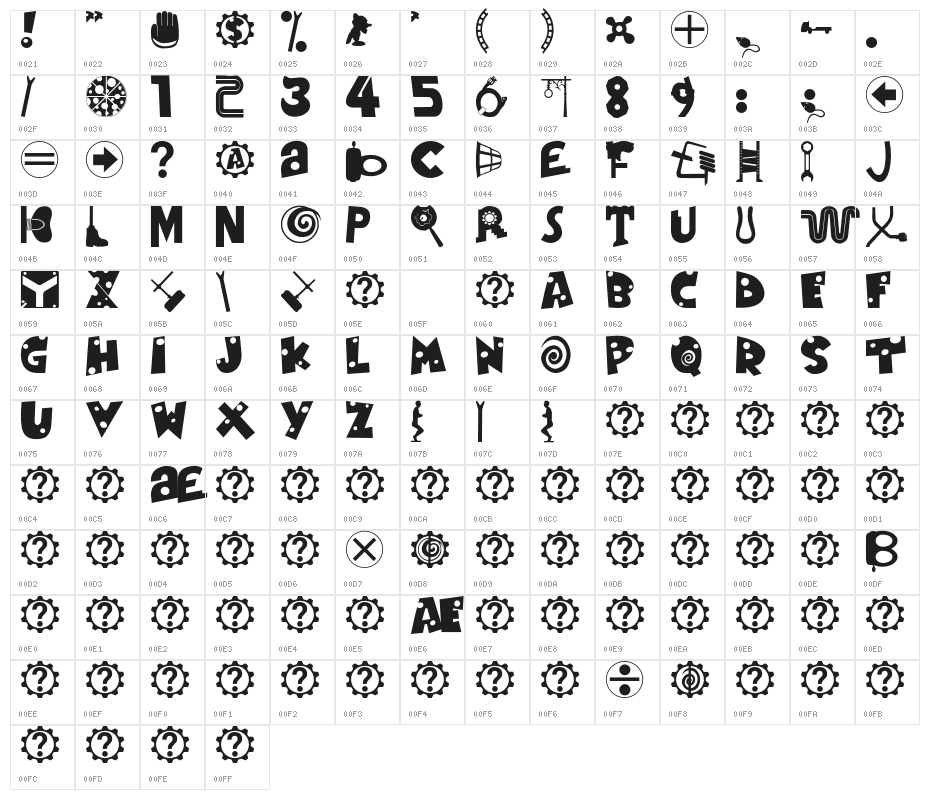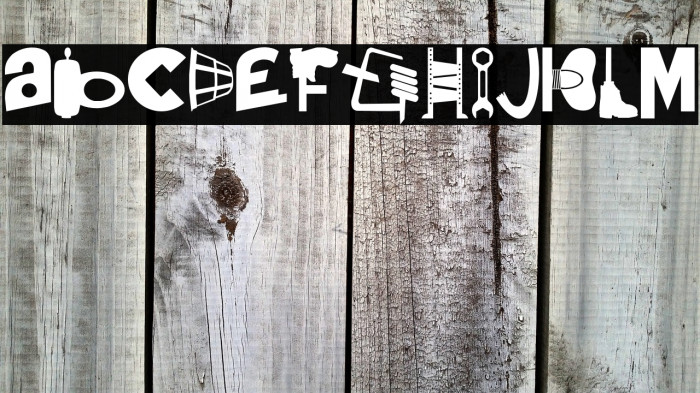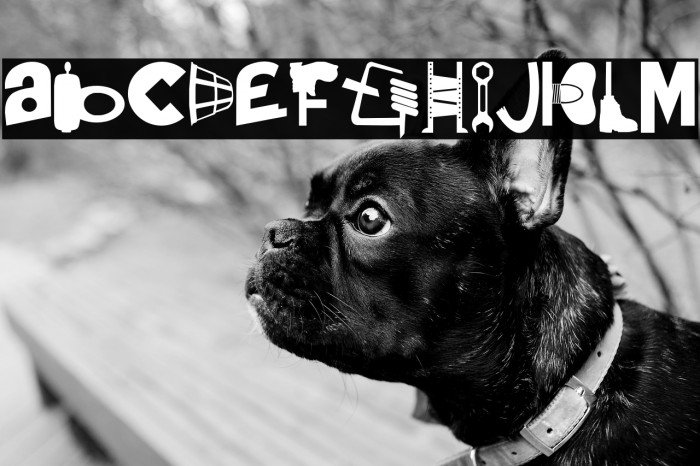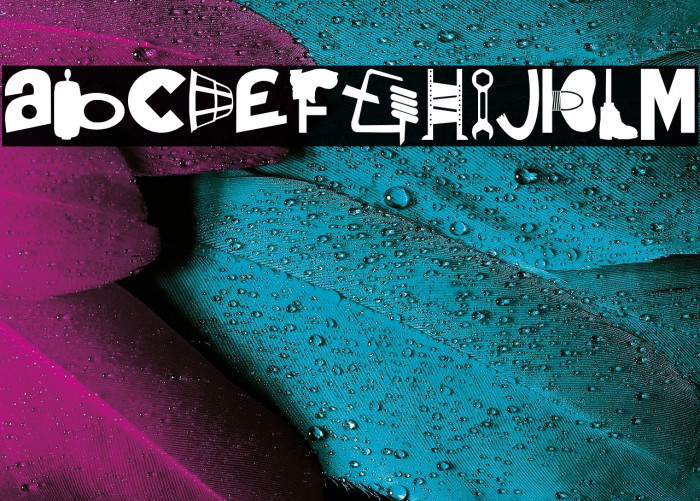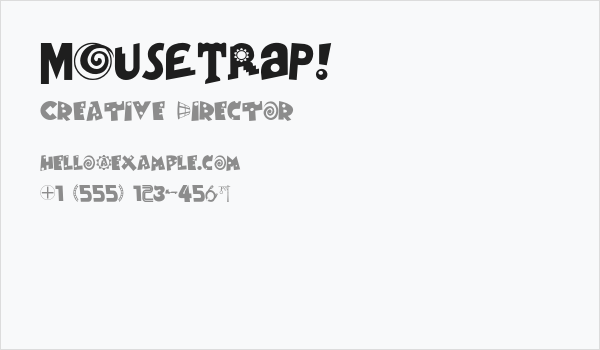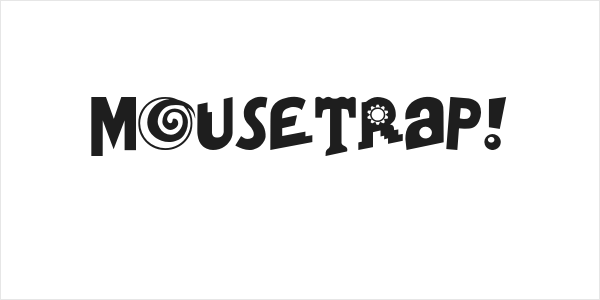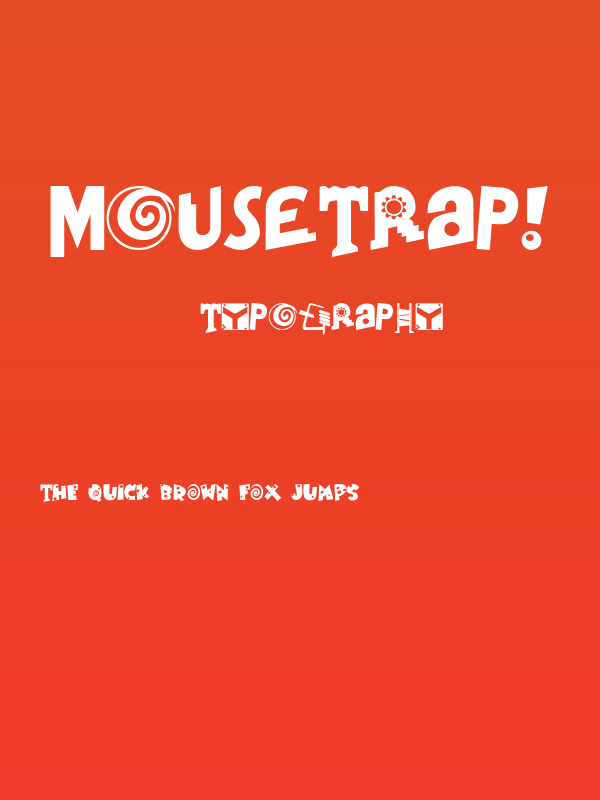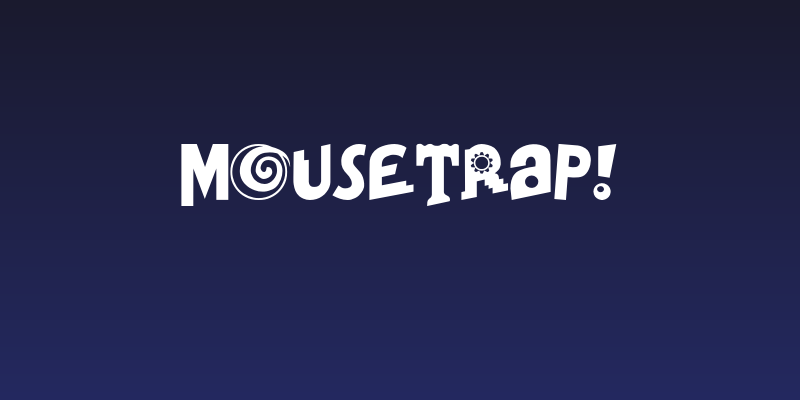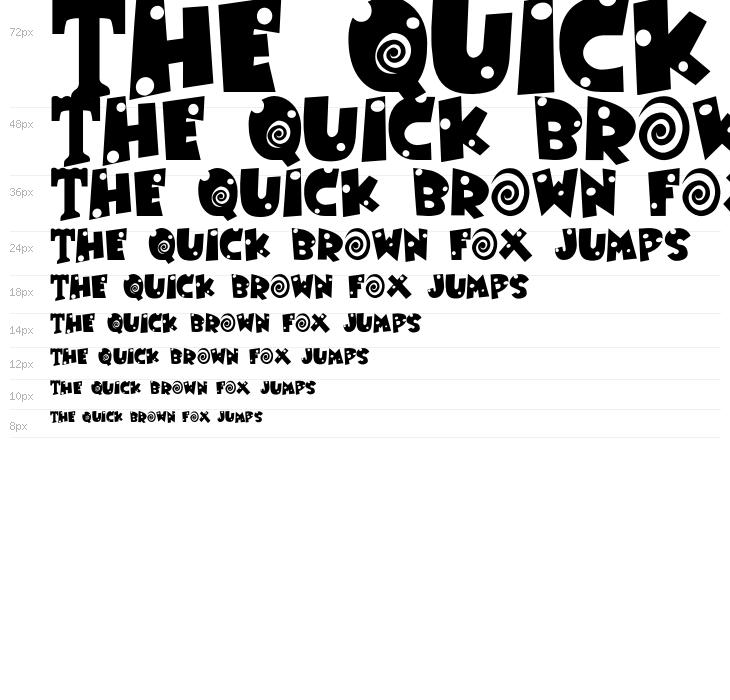
MOUSETRAP! Font
MOUSETRAP! Description
This font features a playful and whimsical design, with each character incorporating elements of a mousetrap theme. The letters are bold and creatively styled, with various objects like gears, springs, and levers integrated into their shapes. The uppercase and lowercase letters maintain a consistent theme, while the numbers and special characters continue the playful motif. The font's unique style makes it stand out, with each character offering a distinct visual element that ties back to the overall theme.
| Overall Style | Whimsical |
| Proposed Projects | Ideal for children's books, themed event posters, playful branding, and creative design projects. |